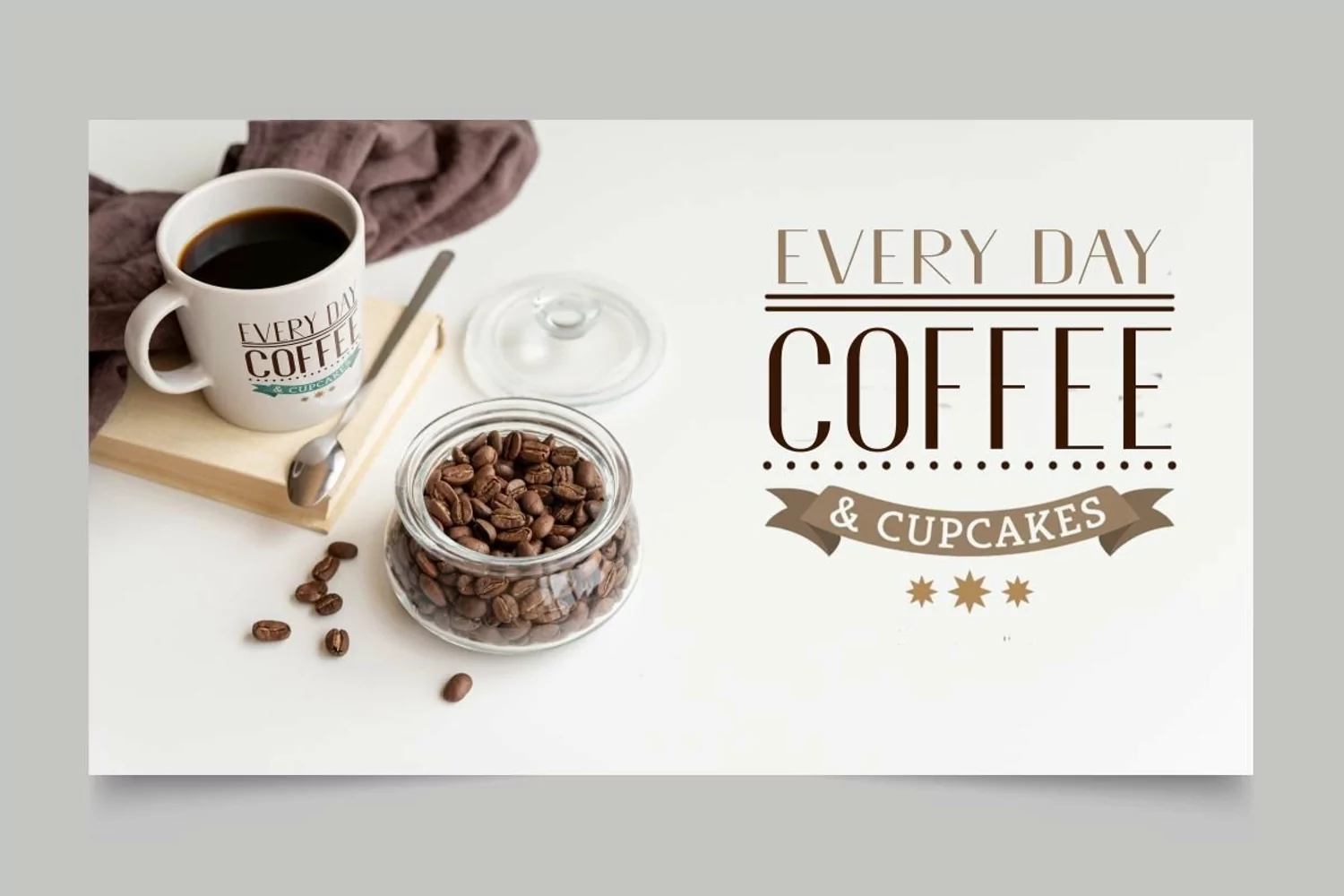
El Fónte - An Elegant Typeface Family
Introducing El Fonte - An Elegant Typeface Font Family !
El Fonte is a Minimalist Modern Elegant font . It's a very versatile font that works great in large and small sizes. Already matched up and ready to be used together for your next design! For those of you who are needing a touch of elegant, stylish, classy, chic and modernity for your designs, this font was created for you!
El Fonte is perfect for branding projects, Logo design, Clothing Branding, product packaging, magazine headers, or simply as a stylish text overlay to any background image.
- 6 Style Font Family
- All caps
- Stylistic Alternates & Ligatures
- Numerals & Punctuation
- Accents/Multilingual characters (AÀÁÂÃÄÅCÇDÐEÈÉÊËIÌÍÎÏNÑOØÒÓÔÕÖUÙÜÚÛWYÝŸỲŸÆŒßÞ)